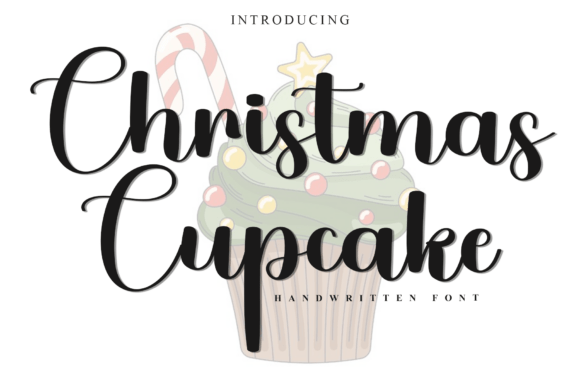
Deck the Halls with Typography: The Magic of Christmas Cupcake Font
As the holiday season approaches, creative minds start to buzz with excitement. There’s something special about designing festive projects – the twinkling lights, the cozy atmosphere, and the joy of bringing cheer to loved ones. For me, it all begins with the perfect font. And that’s where the Christmas Cupcake Font comes in – a delightful, handwritten script font that embodies the spirit of the season.
This charming font is more than just a pretty face; it’s a tool that can elevate your bakery branding, festive packaging, and holiday cards. Its thick, flowing strokes and subtle baseline variation give it an energetic, homemade quality that’s perfect for capturing the magic of the holidays. Whether you’re a designer looking to add some whimsy to your projects or a small business owner seeking to create a consistent brand image, the Christmas Cupcake Font is an invaluable asset.
Christmas Cupcake Font Key Features
- Font Family: Christmas Cupcake is a unique and festive font, perfect for holiday designs and decorations.
- Unique Characteristics: Features intricate details, swashes, and flourishes to give your designs a whimsical and festive feel.
Christmas Cupcake Font Review
The Christmas Cupcake Font is a whimsical, cursive script font designed to evoke the festive spirit of the holiday season. Here are my honest thoughts on this font.
- Unique and festive design: The font’s playful, cursive script makes it perfect for Christmas-themed projects, adding a touch of whimsy and fun.
- Wide range of uses: This font can be used for various purposes, from greeting cards and invitations to social media posts and website headers.
- High-quality design: The font is well-designed and has a professional look, making it suitable for both personal and commercial projects.
- Limited flexibility: The font’s design is quite specific to the Christmas theme, which may limit its use in other contexts.
- Not ideal for body text: Due to its cursive script, the font may be difficult to read in large blocks of text, making it better suited for headings and titles.
The Christmas Cupcake Font is a delightful addition to any holiday-themed project. While it may have some limitations, its unique design and high-quality construction make it a great choice for anyone looking to add a touch of festive flair to their work.
What is the recommended font size for the Christmas Cupcake Font?
The recommended font size for the Christmas Cupcake Font is between 12-24 points. This will ensure optimal legibility and visual appeal in most design applications. However, feel free to experiment with different font sizes to achieve the desired effect.